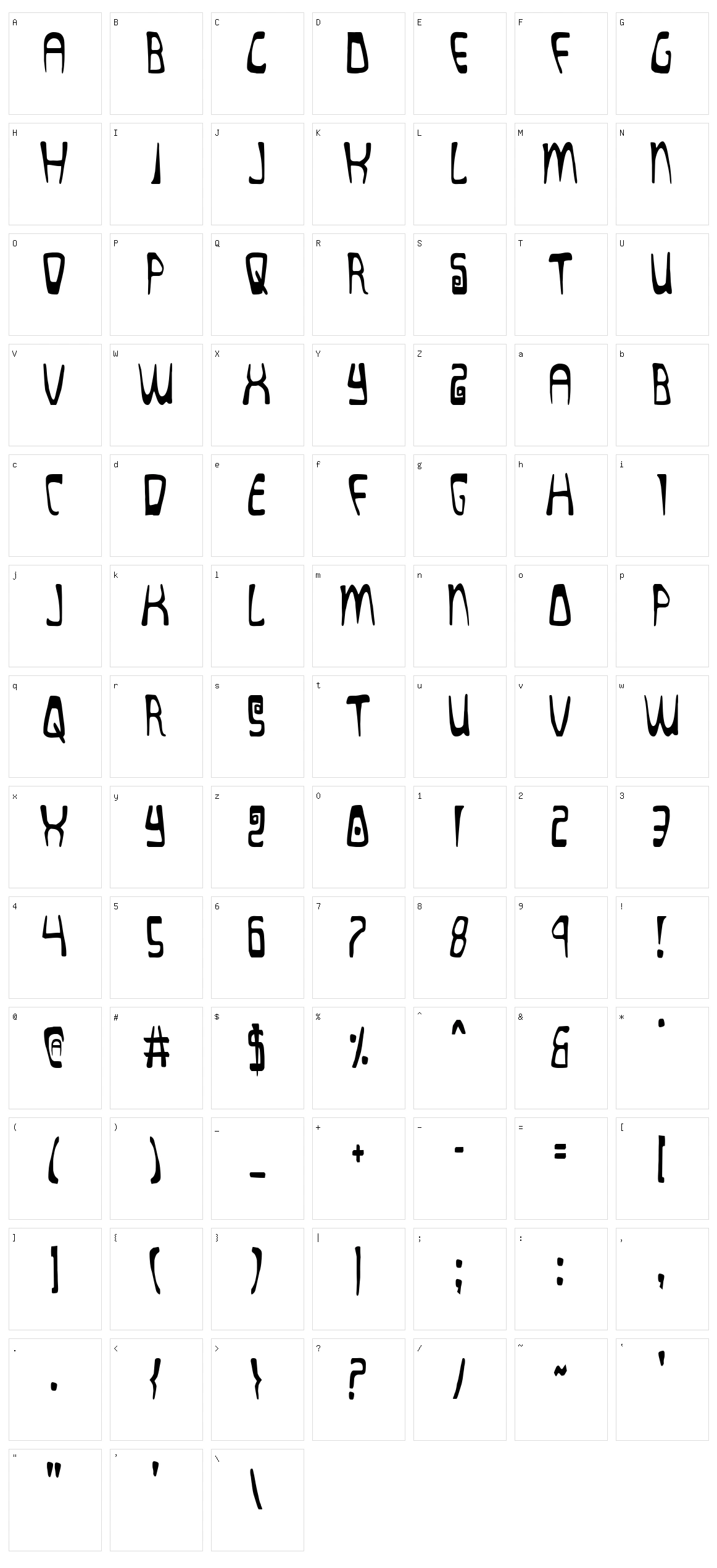
This font comes with the following 4 versions: Regular, Italic, Expanded, and Condensed.
This font has several alternate characters in the upper and lower cases.